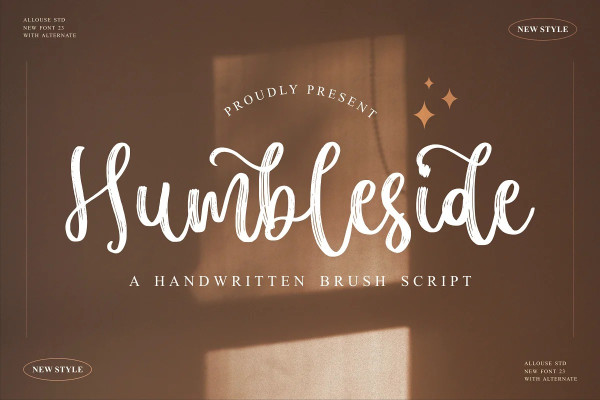
Humbleside Font
Humbleside Font A Brush Script Font. Humbleside is perfect for any titles, logo, product packaging, branding project, megazine, social media, wedding, or just used to express words above the background.
Humbleside also come with Multi-Lingual Support.